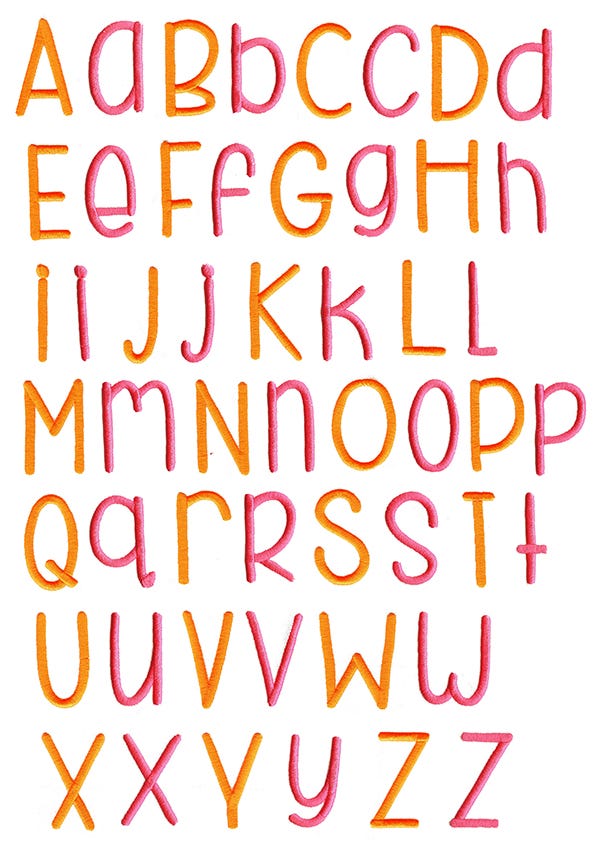
Beneath Your Beautiful Satin Stitch Embroidery Font
Here is a super cute font...great for boys, girls, tweens and teens! Upper and lower case uniform in height. All of our font alphabets are always 100% manually digitized to bring you maximum stitch quality.